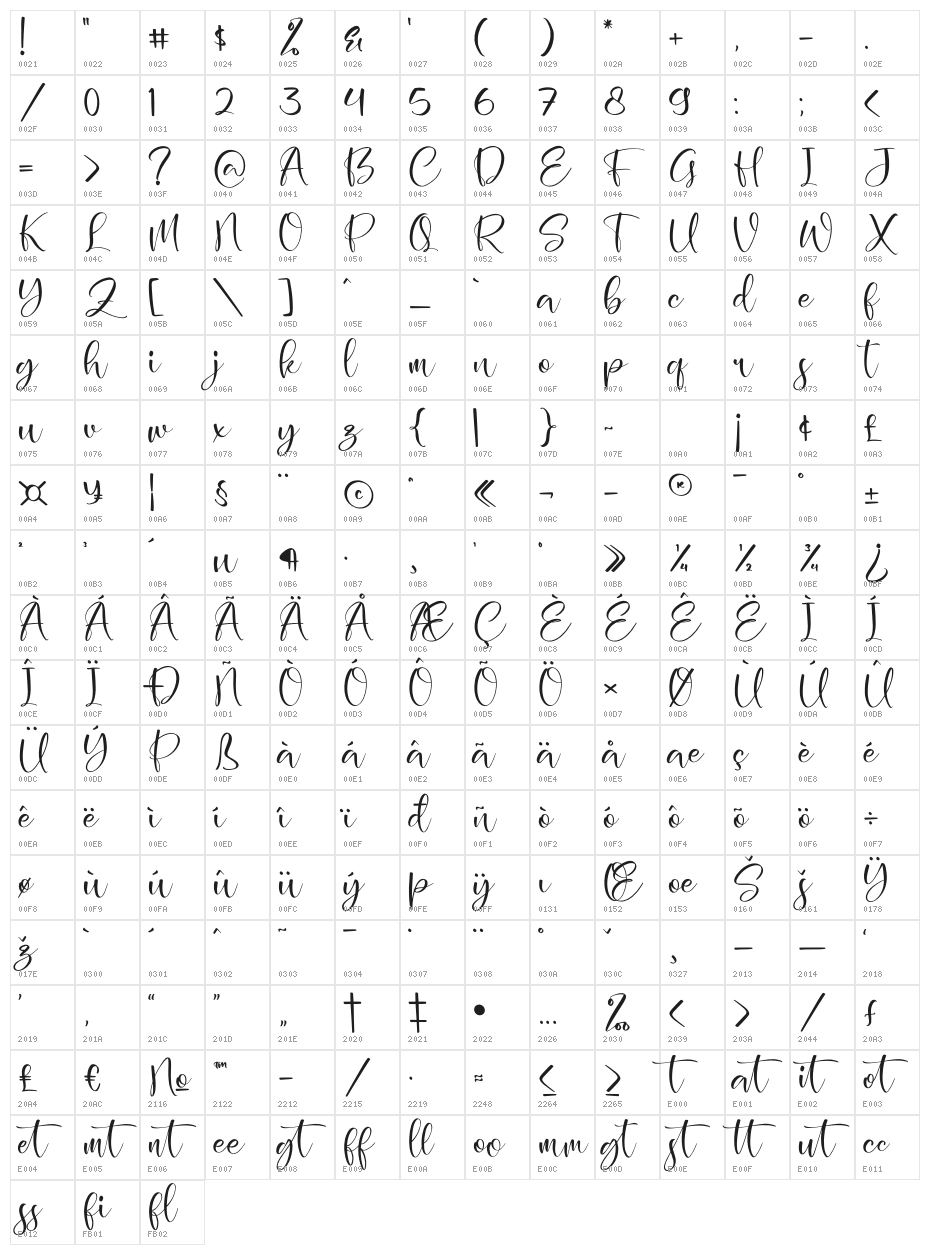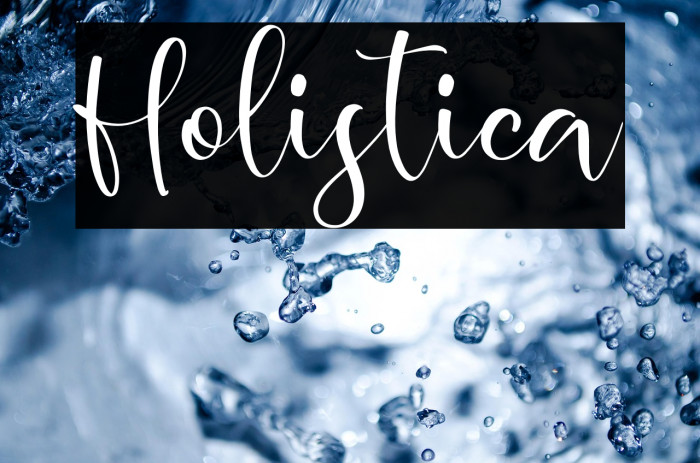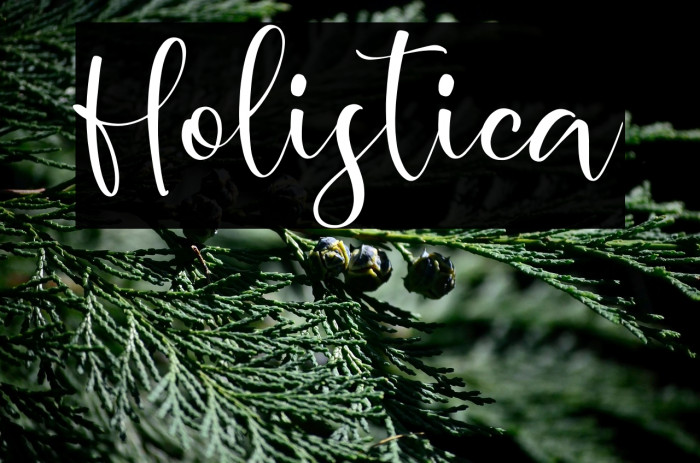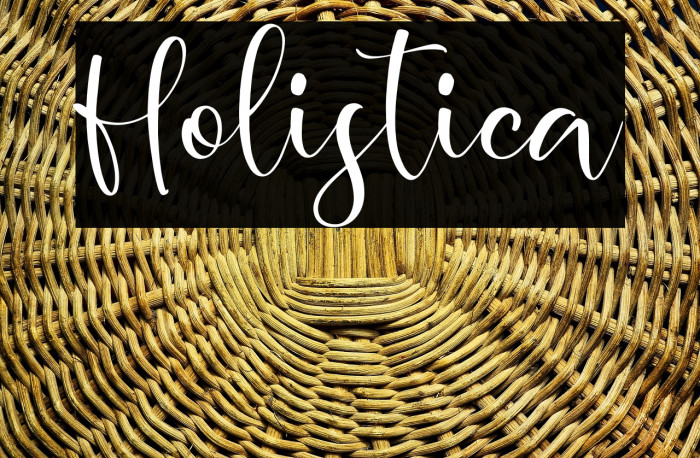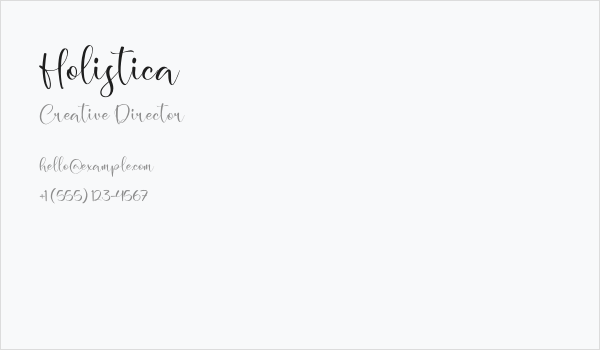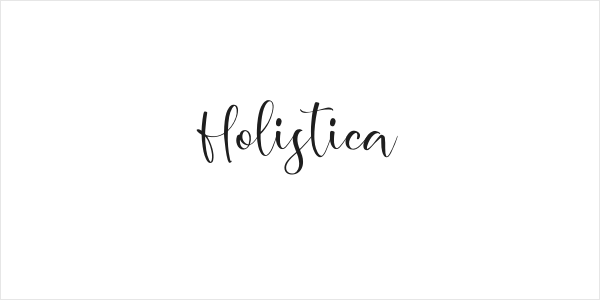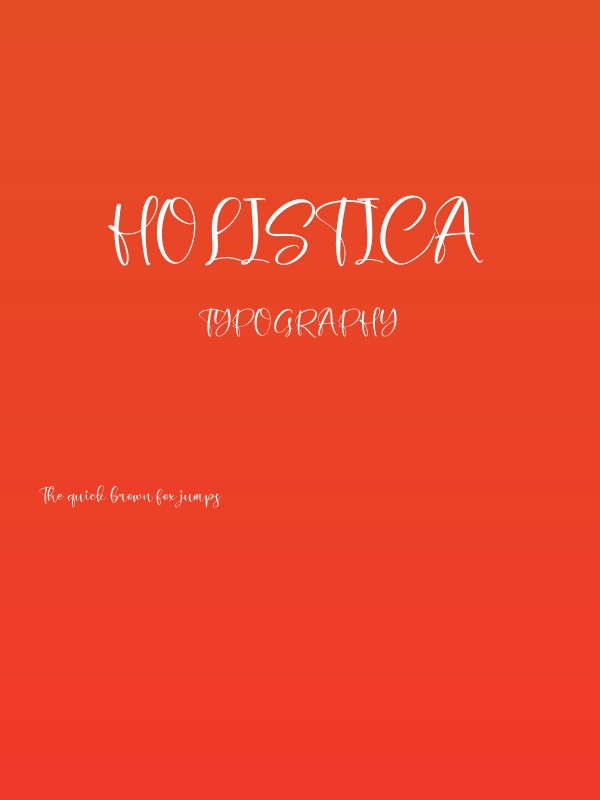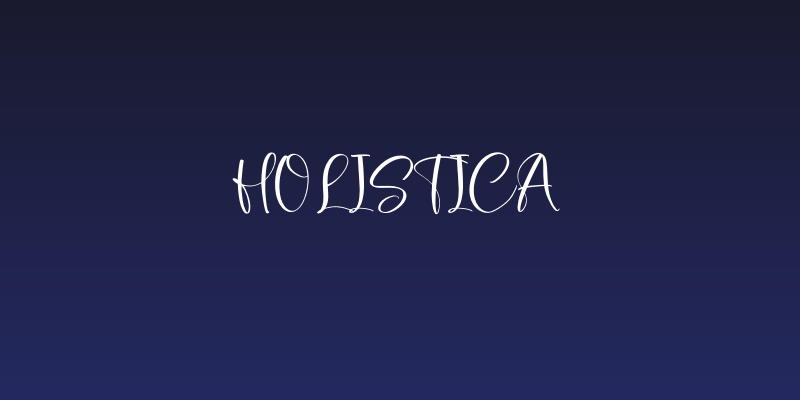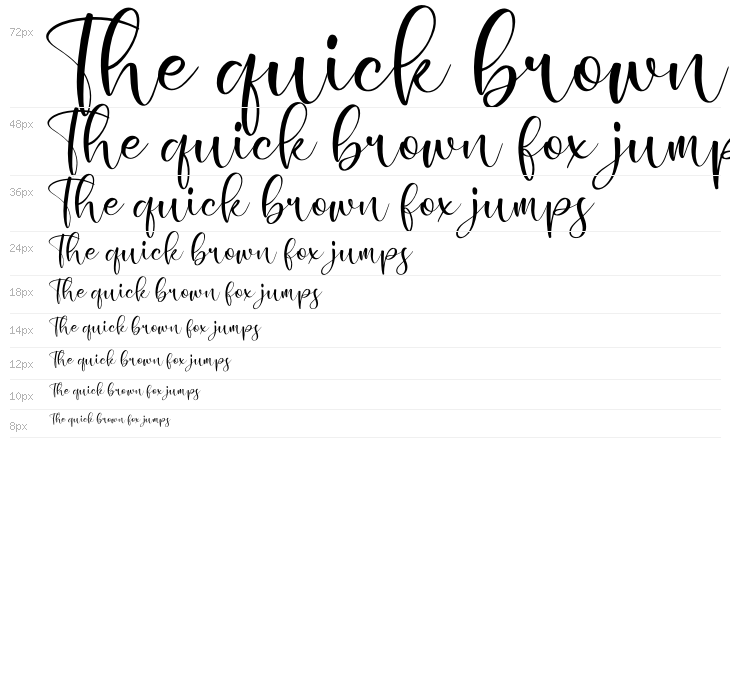
Holistica Font
Holistica Description
This font features an elegant, flowing script style that captures a sense of fluidity and grace. The characters are interconnected with smooth, sweeping curves, giving it a handwritten appearance. The uppercase letters are slightly more elaborate, with extended loops and flourishes, while the lowercase letters maintain a consistent rhythm and balance. The numerals are bold and clear, complementing the overall aesthetic. Special characters are integrated seamlessly, maintaining the font's cohesive look. This font exudes a modern yet timeless charm, making it versatile for various design needs.